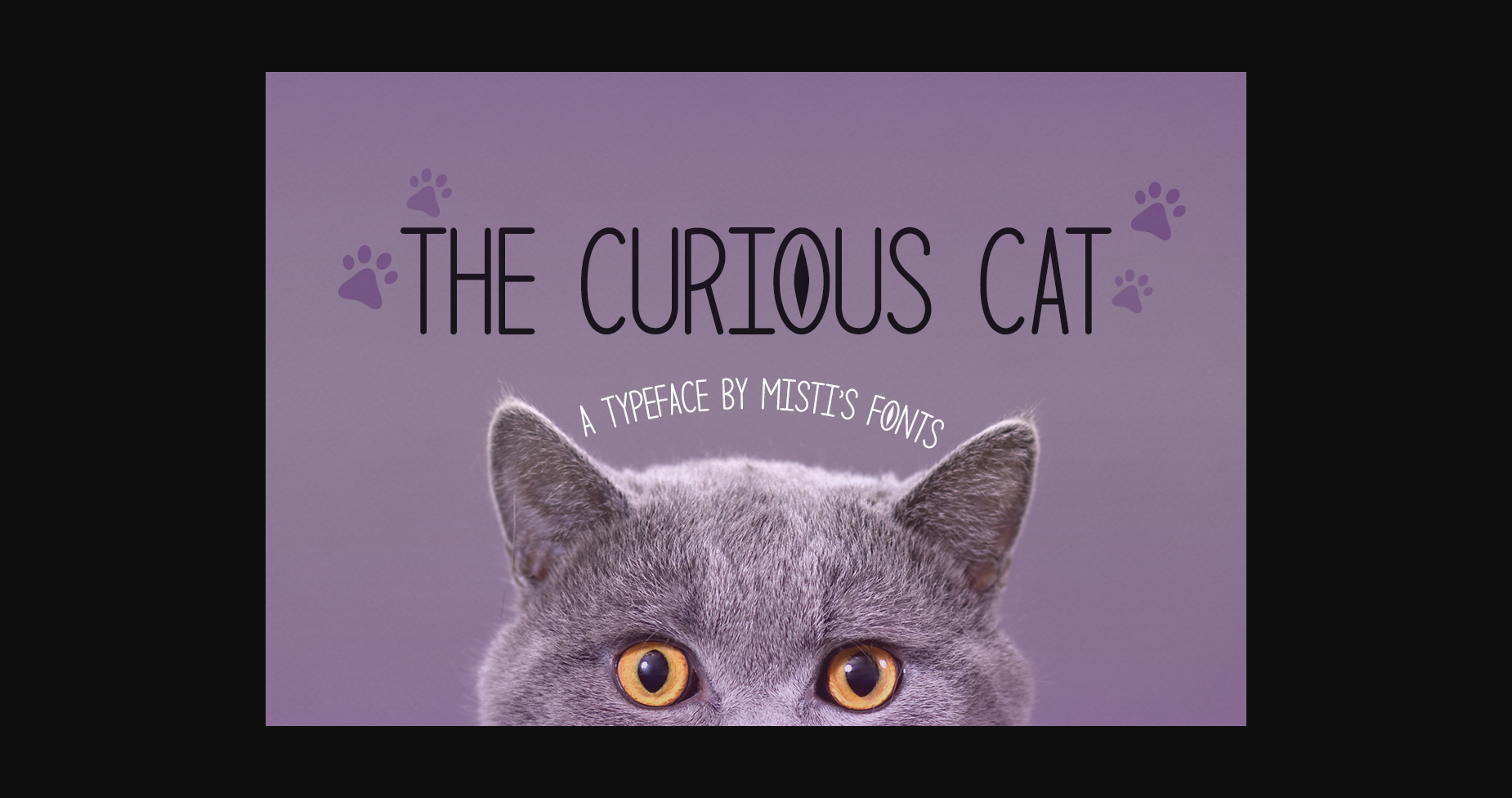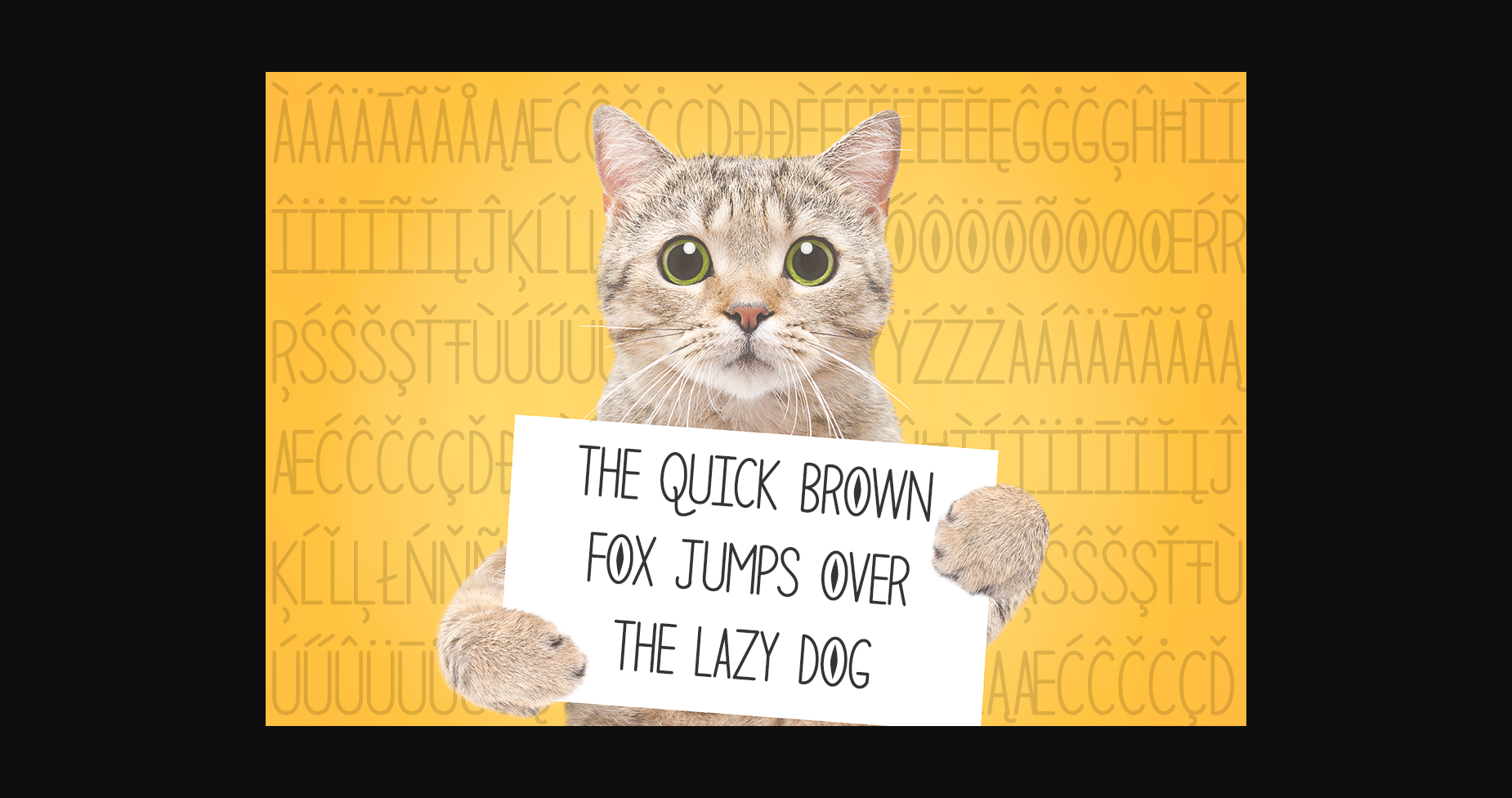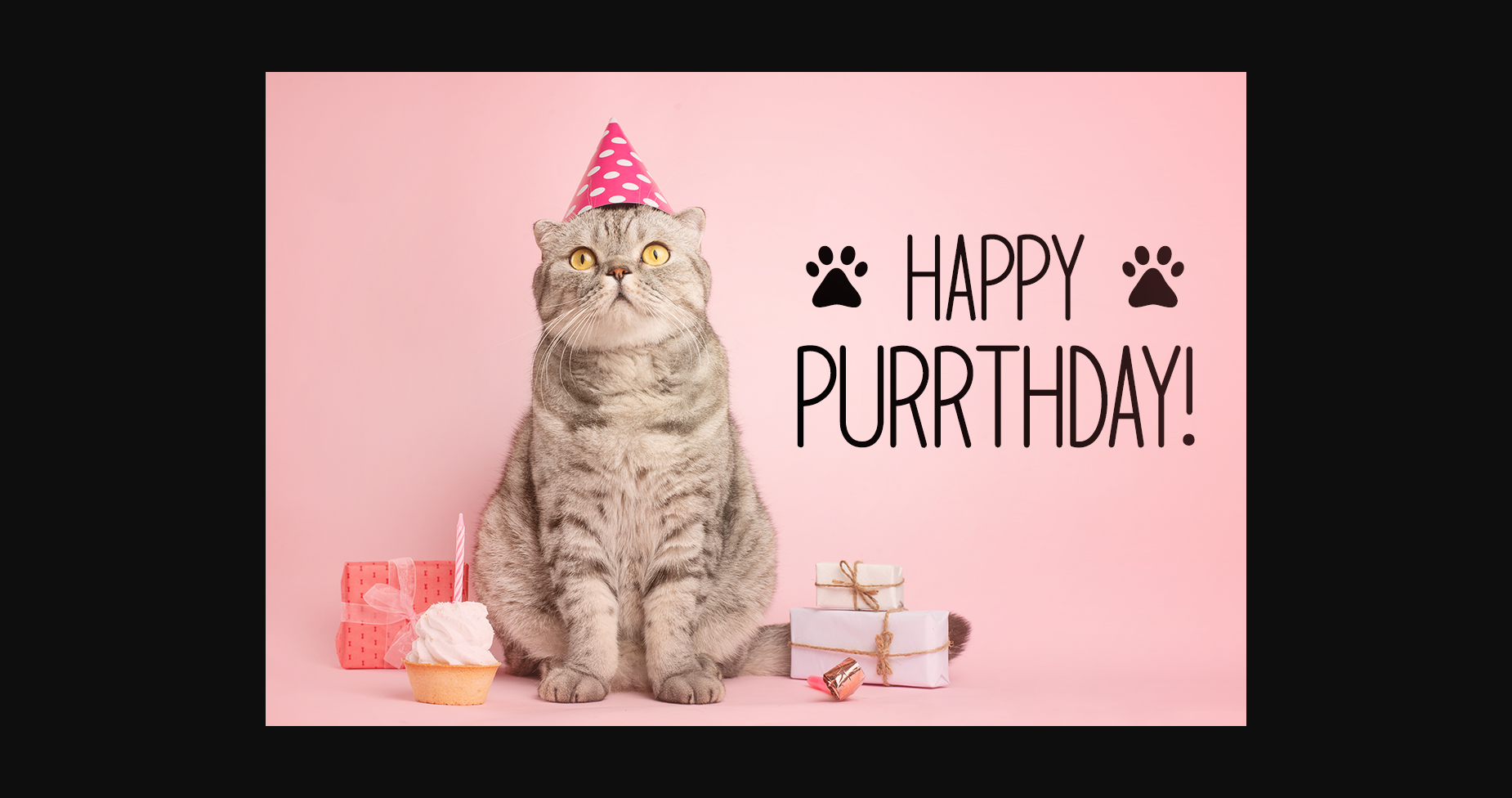
HomeSans Serif FontsThe Curious Cat Font Sans Serif Fonts The Curious Cat Font FacebookXPinterestWhatsApp 1 of 5 ... The Curious Cat Font Poster 2... The Curious Cat Font Poster 3... The Curious Cat Font Poster 4... The Curious Cat Font Poster 5... About The Curious Cat Font The Curious Cat is a minimal, yet elegant sans serif font. Suitable to a wide variety of designs due to its neat and simple style, this font has the potential to become your favorite go-to font, no matter the occasion! DOWNLOAD NOW People also explored Highlight Font Bilaguta Font Allgo Font Gethania Script Font Unicron Font Mockrim Font Sunday Best Font California Font Love Plants Font 396 0 TagsThe Curious Cat Font Previous articleSamberly FontNext articleHarbor Font LEAVE A REPLY Cancel reply Comment: Please enter your comment! Name:* Please enter your name here Email:* You have entered an incorrect email address! Please enter your email address here Website: Save my name, email, and website in this browser for the next time I comment. Personal Use Free Hello Ketta Personal Use Free Read more about this font DREXS Personal Use Free Read more about this font Borg Personal Use Free Read more about this font Bollado Personal Use Free Read more about this font BLOG Free vs Paid Fonts: Why Investing in Premium Fonts Is Worth It Free vs Paid Fonts: Why Premium Fonts Are Worth It in 2025 The debate of free vs paid fonts continues in the design world. While... Where to Buy American Fonts Online in 2024 How to Install and Use Fonts on Windows, macOS, and Web Projects Top 10 Handwritten Fonts That Elevate Your Designs